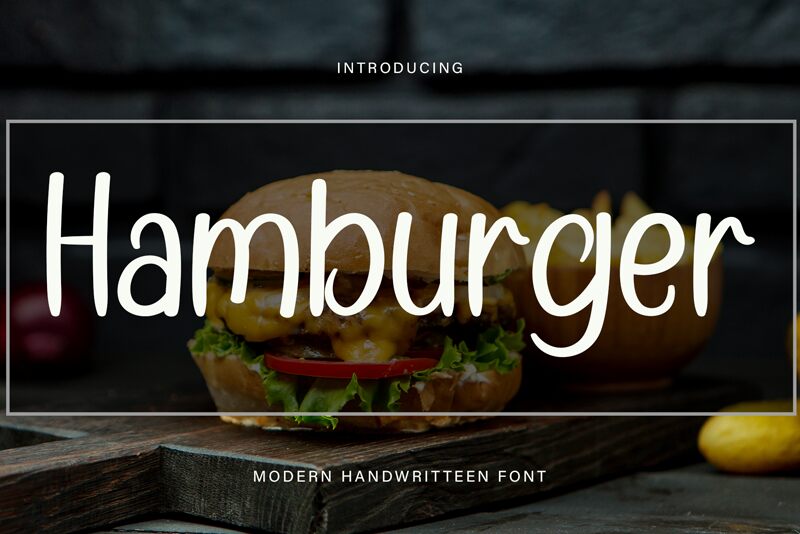
Hamburger
Hamburger, a delightful handwritten font created by Etik Fatimah, captures the playfulness of this beloved fast food icon. With its semi-light weight and semi-condensed width, this font is perfect for adding a fun and whimsical touch to any creative project.
Whether it's designing invitations for a backyard barbecue, crafting menus for a gourmet burger joint, or creating unique packaging for a food delivery service, Hamburger font will bring an appetizing charm that will leave everyone craving more.
Use it to give your designs that extra flavor they need!